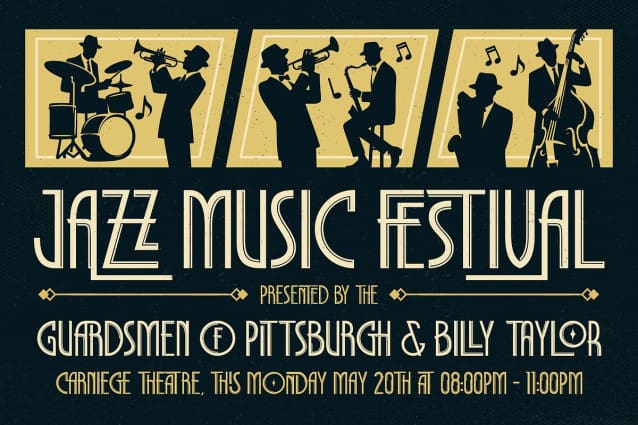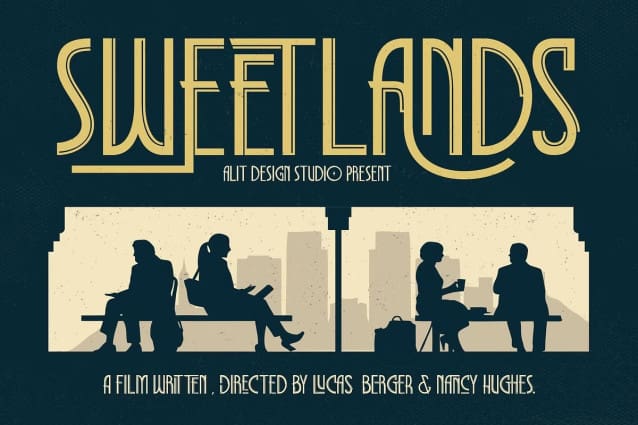
Dechora Zone Font
Dechora Zone Font, a bold reimagining of Art Deco elegance. This typeface captures the iconic aesthetic of the Art Deco era, but with a modern twist—dynamic, flowing lines blend vintage charm with contemporary sophistication, making it truly one of a kind.
Whether you’re designing for luxury branding, editorial layouts, event invitations, or packaging, Dechora Zone adds a touch of opulence and creativity that stands out in any project.